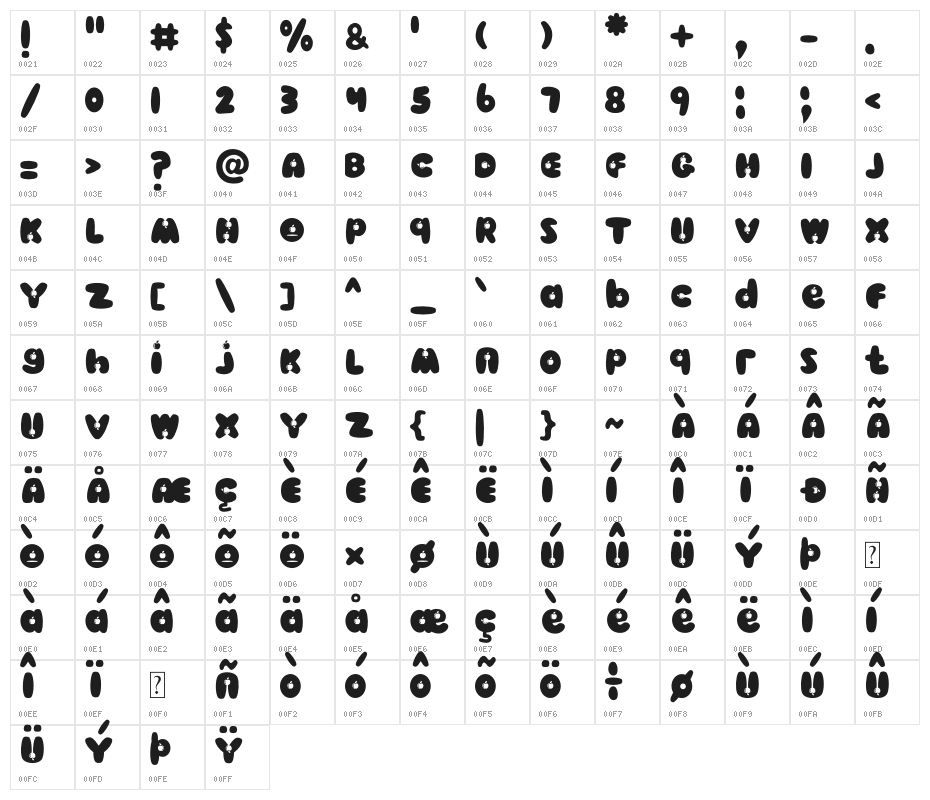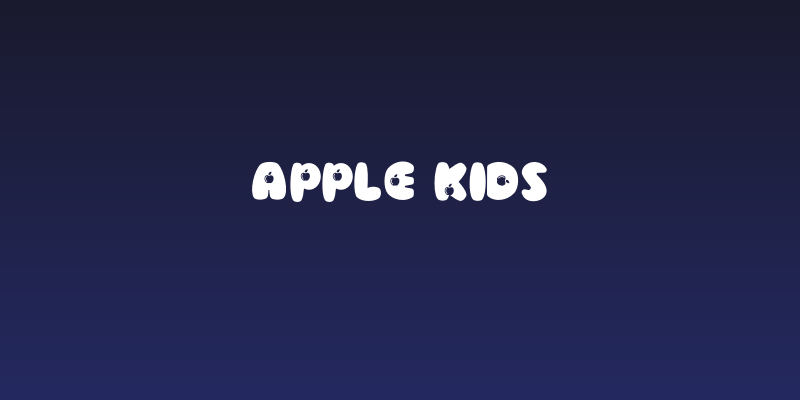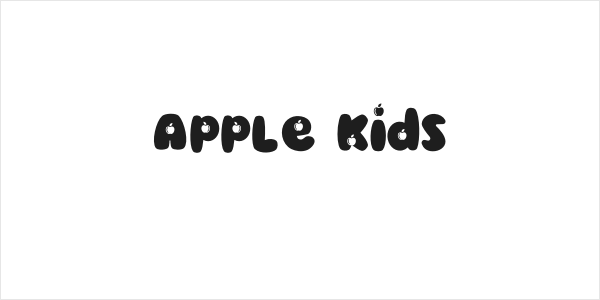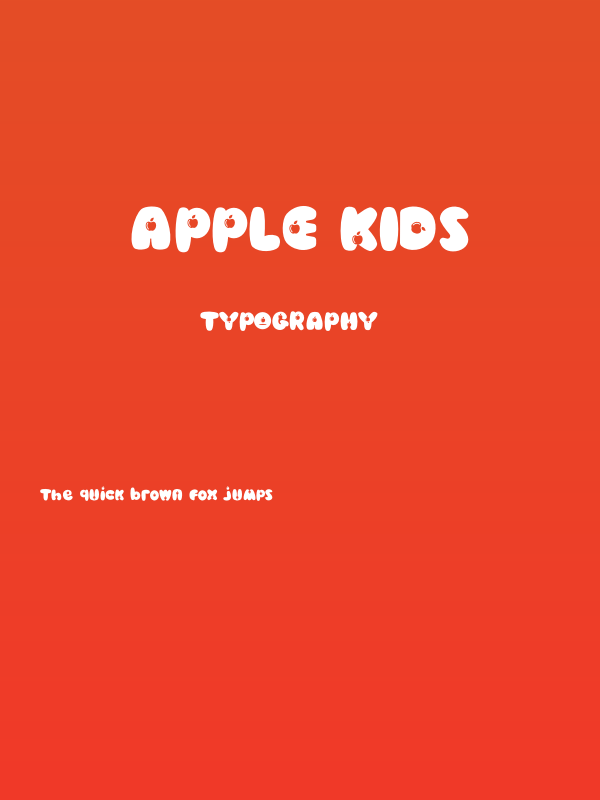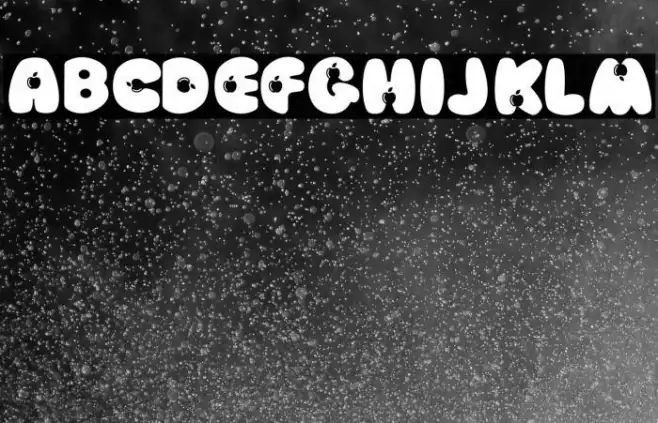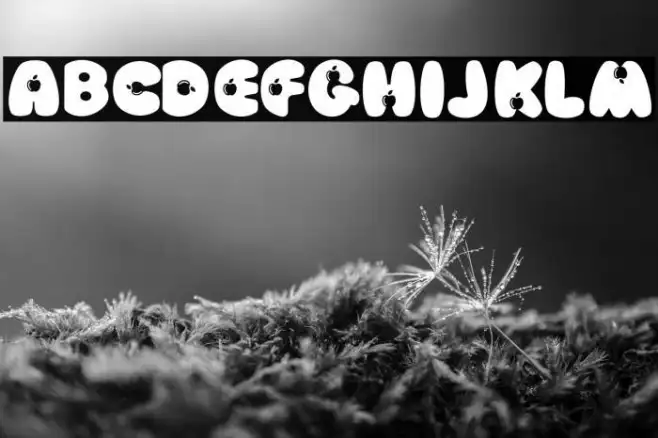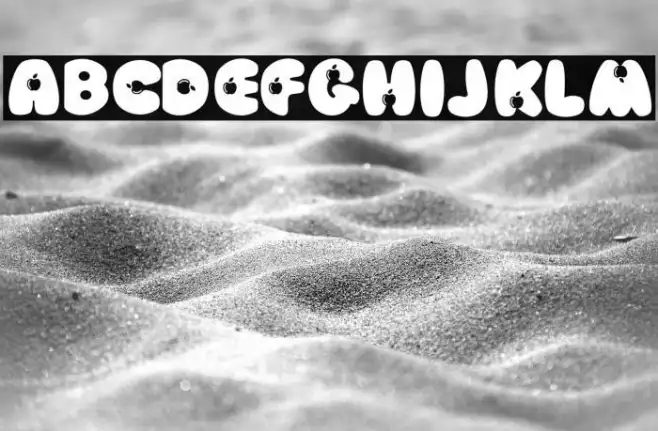
Apple Kids Font
Apple Kids Description
This playful and bold font features rounded, bubbly characters with a whimsical touch. Each letter and number is designed with a unique apple motif, adding a fun and creative element. The font is highly decorative, making it ideal for projects that require a lively and engaging appearance. Its thick strokes and rounded edges give it a friendly and approachable feel, perfect for children's materials or playful branding. The characters are evenly spaced, ensuring readability while maintaining a cohesive look. The font's distinctive style makes it stand out, capturing attention with its cheerful and imaginative design.
| Proposed Projects | Ideal for children's books, playful branding, educational materials, and creative posters. |